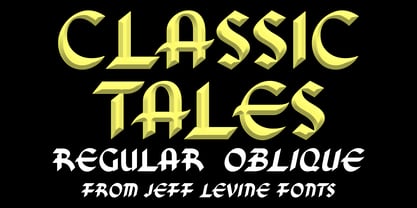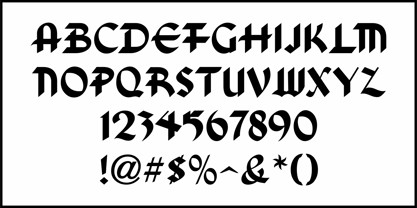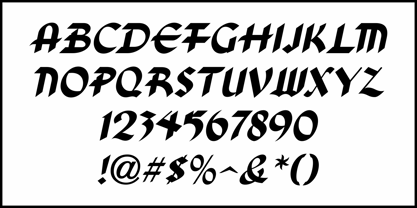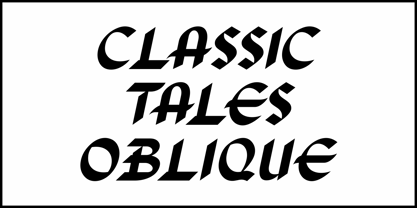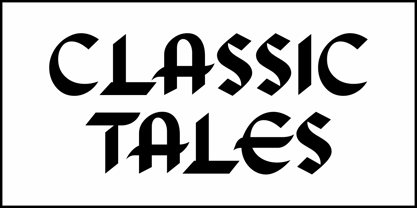
Classic Tales JNL
by Jeff Levine
In the 1954 book entitled "101 Alphabets" by Ben & Ed C. Hunt one finds a calligraphic style of sans serif lettering which draws on previous historic influences, yet retains a look that is fresh and different.
The design is now available digitally as Classic Tales JNL in both regular and oblique versions. Visit Jeff Levine for more unique type designs.